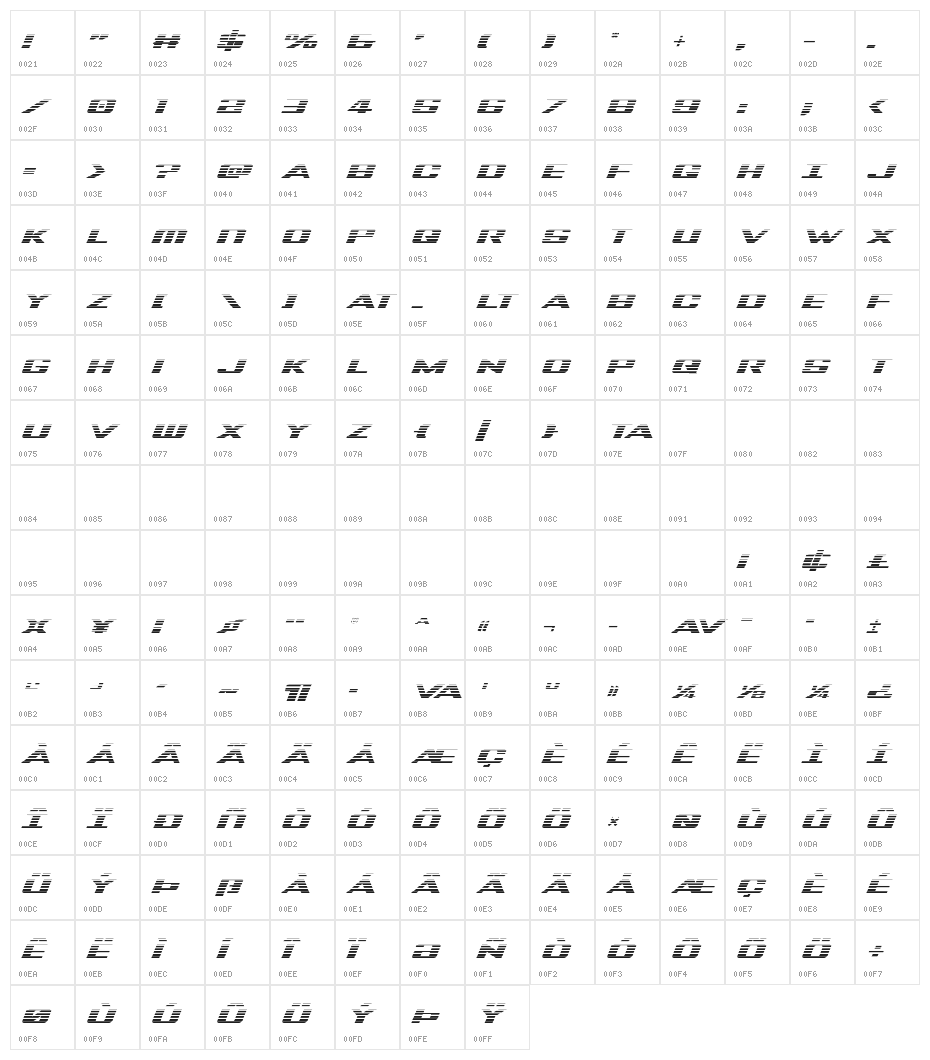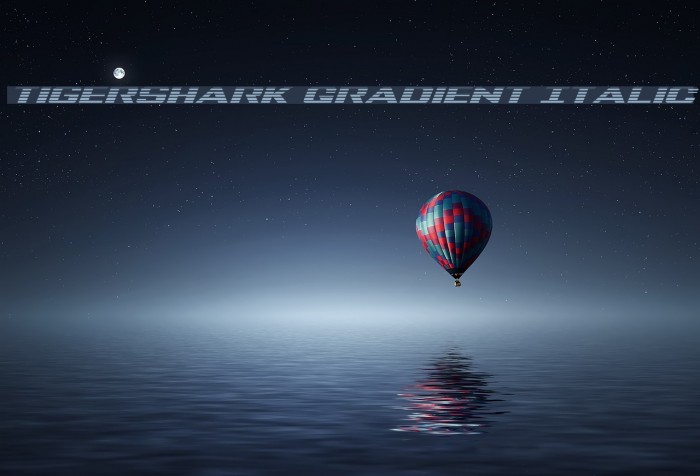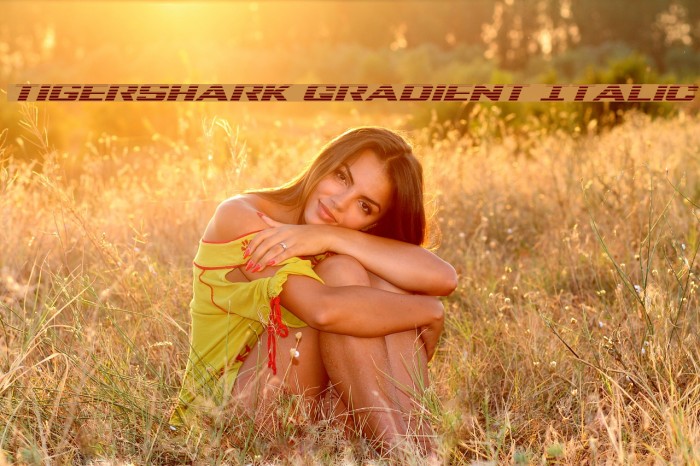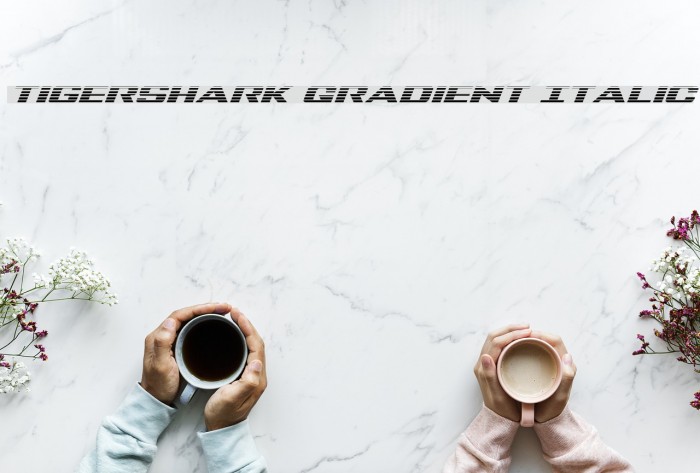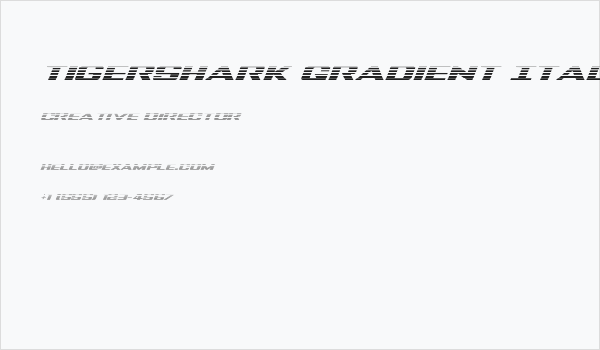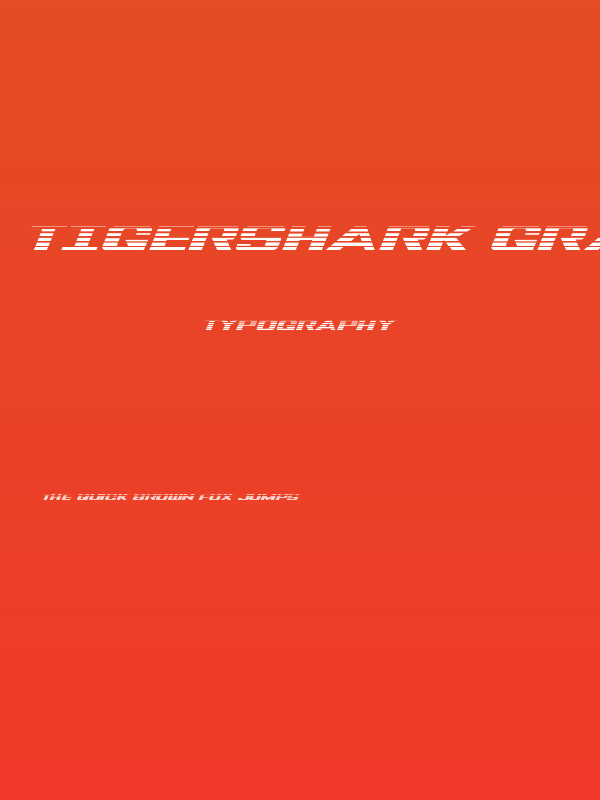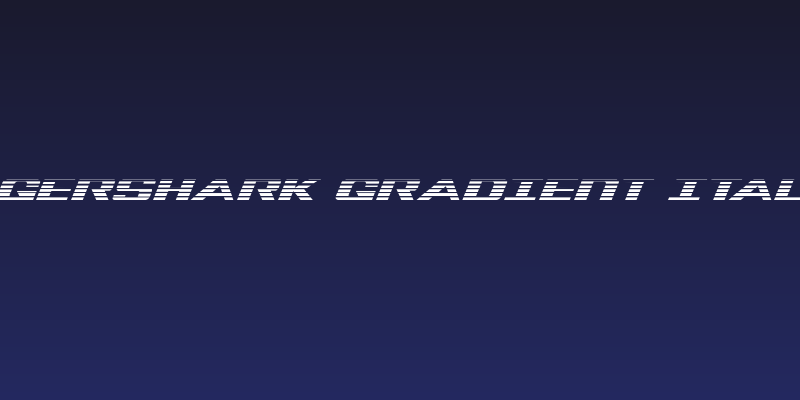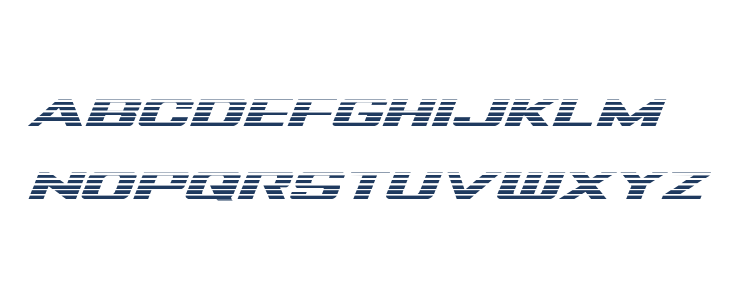
Tigershark Gradient Italic Font
Tigershark Gradient Italic Description
This font features a dynamic and modern design with a distinct italic slant, giving it a sense of motion and energy. The characters are composed of horizontal stripes, creating a gradient effect that adds depth and visual interest. The uppercase and lowercase letters maintain a consistent style, with sharp angles and clean lines. The numerals and special characters are equally bold and striking, making them stand out. This font's unique striped pattern and italicized form make it ideal for projects that require a futuristic or sporty aesthetic.